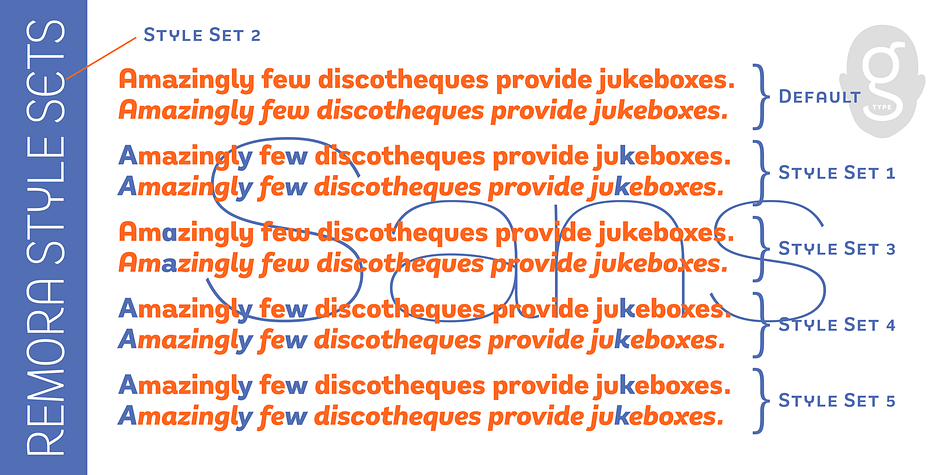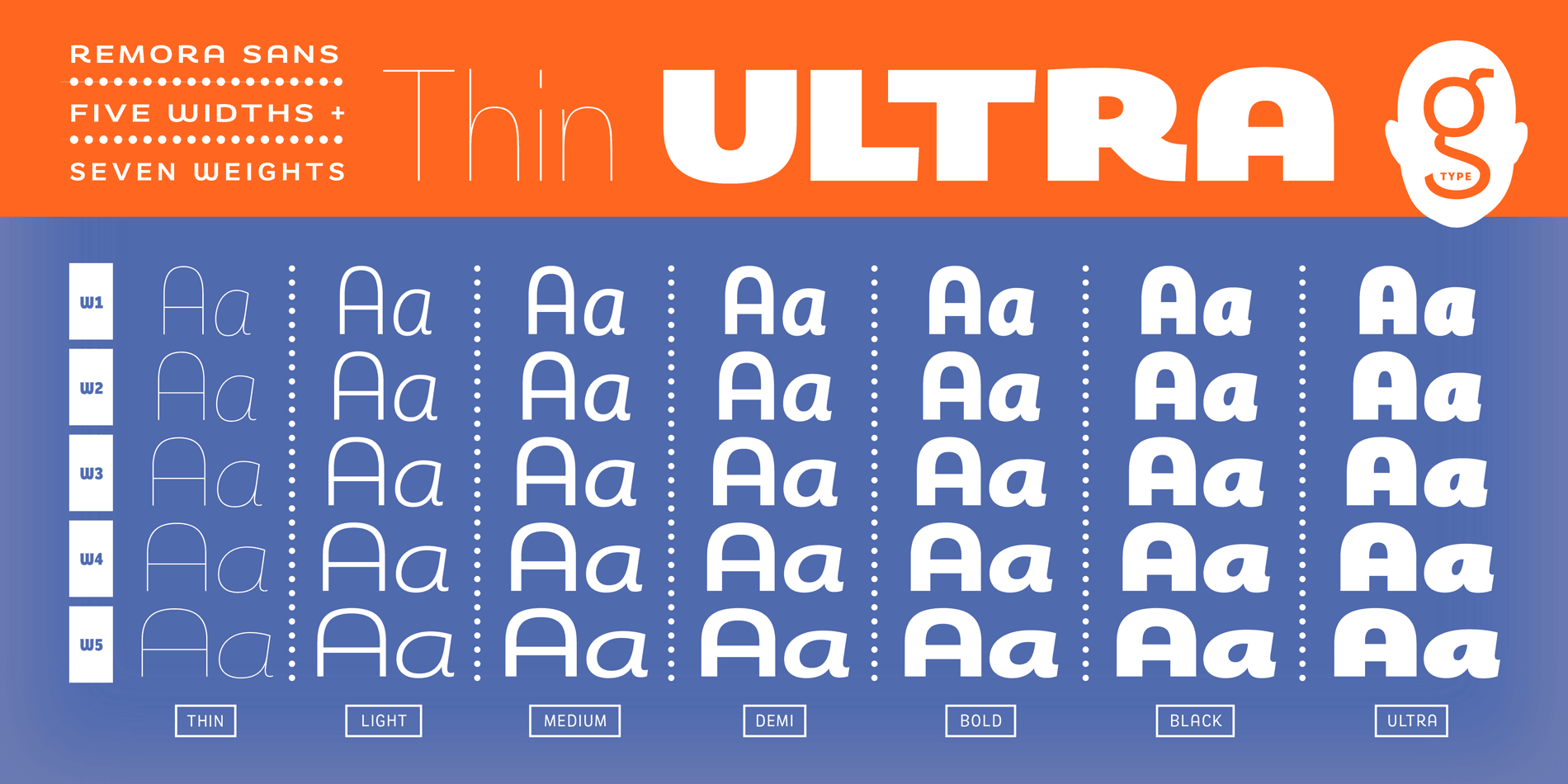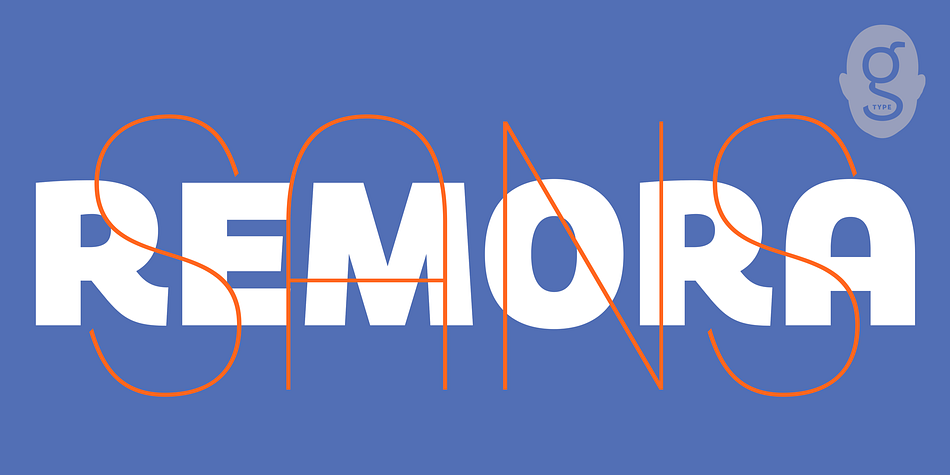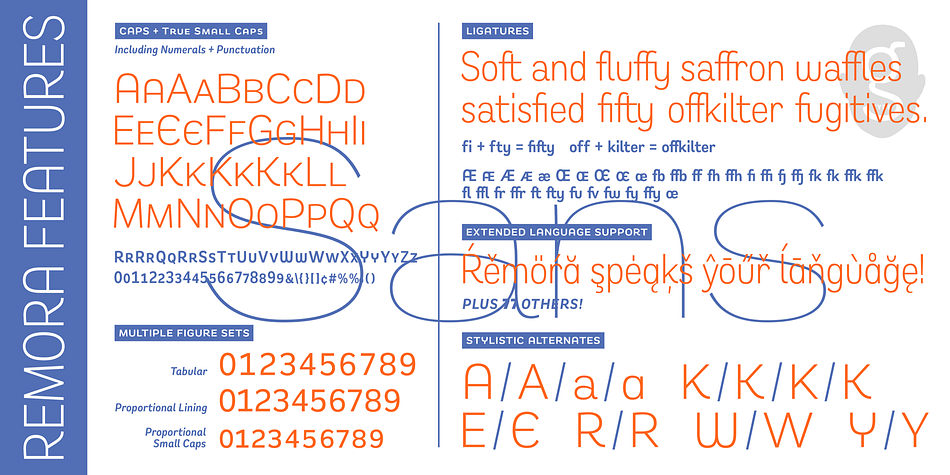
Designed by Nick Cooke, Remora Sans W2 is a sans serif font family. This typeface has fourteen styles and was published by G-Type.
Remora Sans is an ultra versatile sans serif type family, the more exuberant and characterful partner to Remora Corp, ideal for any design project.
Each Remora set comes in 5 different width options ranging from the condensed W1 to the expanded W5, each boasting 7 weights plus true italics.
Remora Sans W1’s condensed letterforms are tailor made for flexible copy fitting and working within space restrictions without sacrificing design excellence.